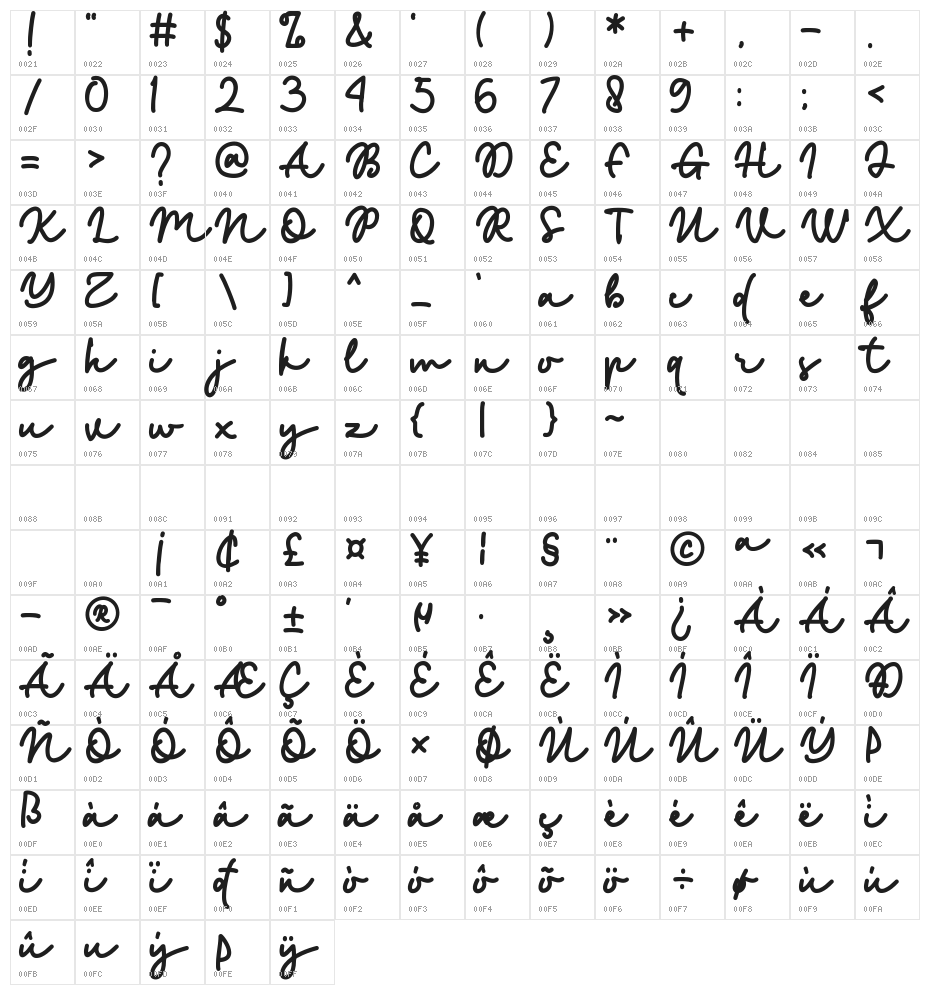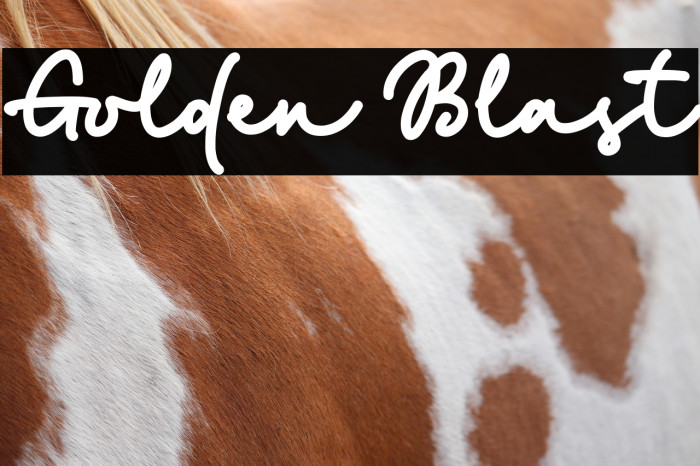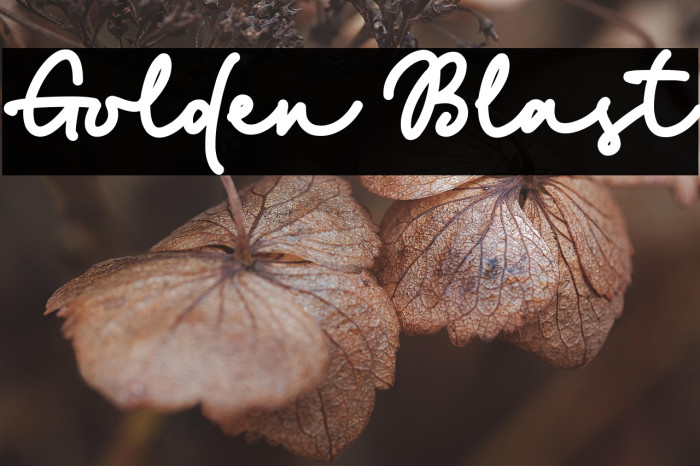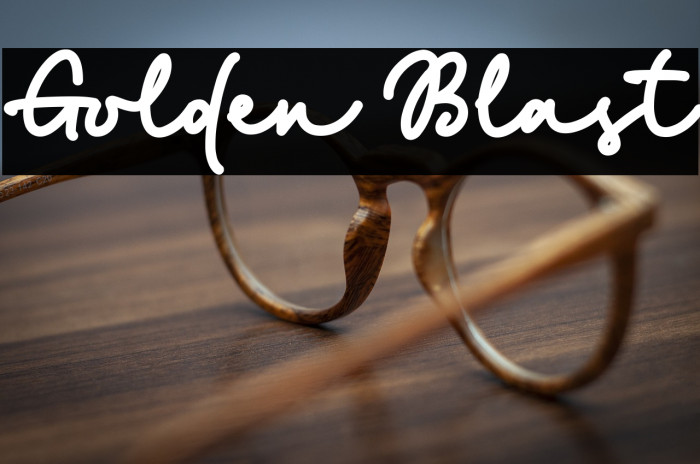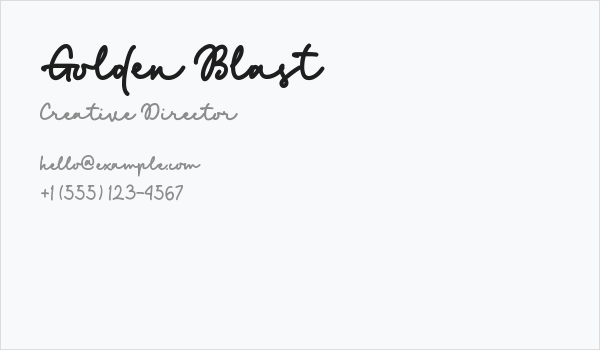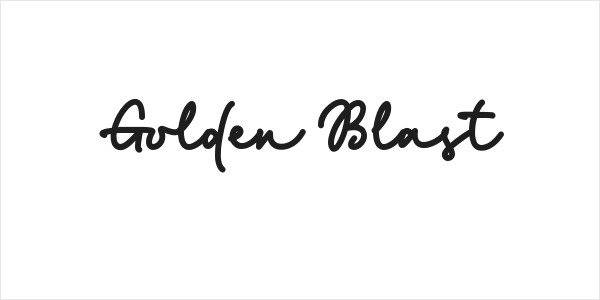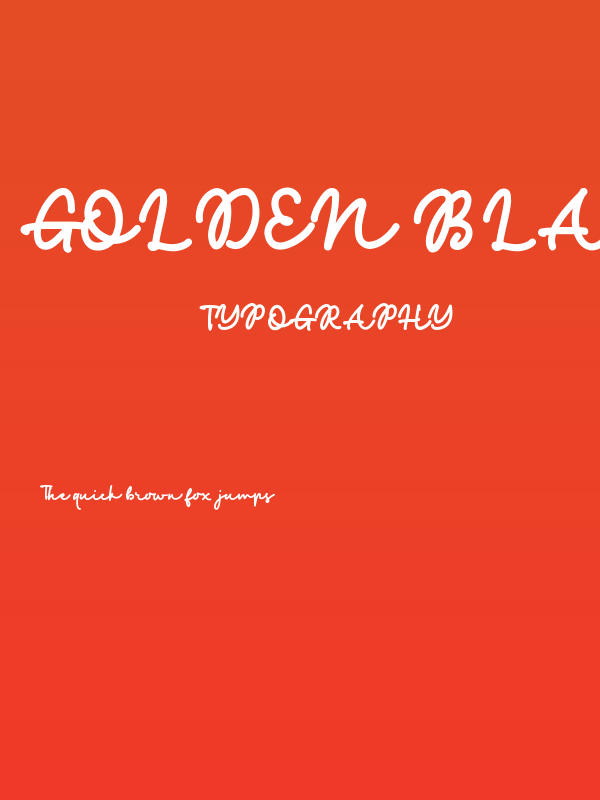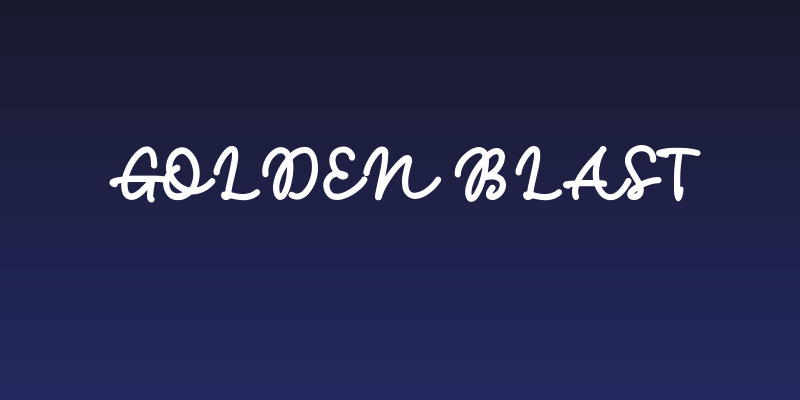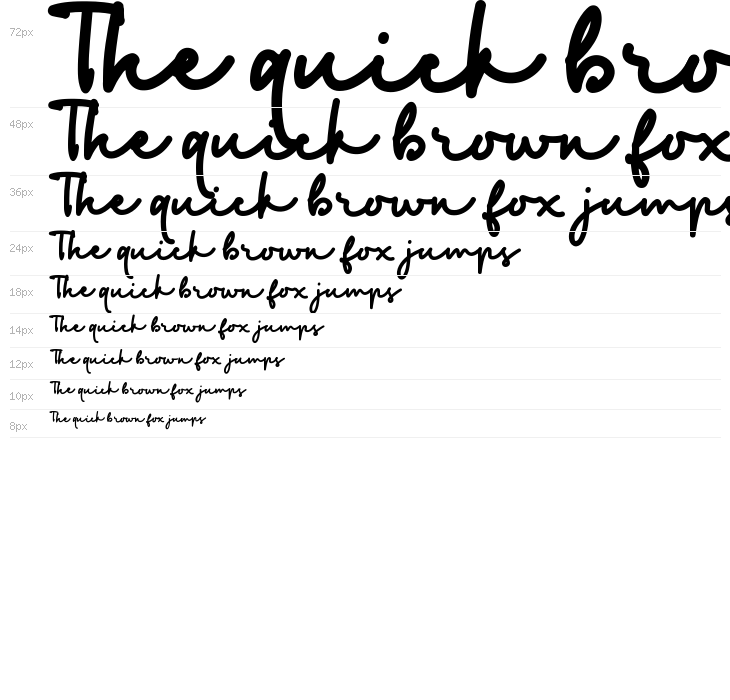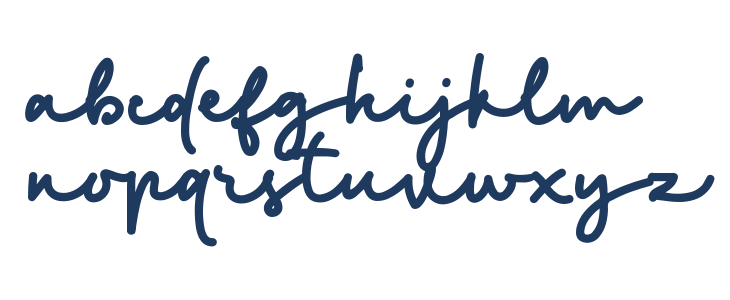
Golden Blast Font
Golden Blast Description
This font features a playful and energetic script style, characterized by its bold, flowing strokes and smooth curves. Each letter connects seamlessly, creating a sense of movement and fluidity. The uppercase letters are slightly larger and more pronounced, while the lowercase letters maintain a consistent rhythm and balance. The numerals and special characters are designed to match the lively aesthetic, ensuring a cohesive look across all text. This font's bold presence makes it ideal for capturing attention and conveying a sense of fun and creativity.